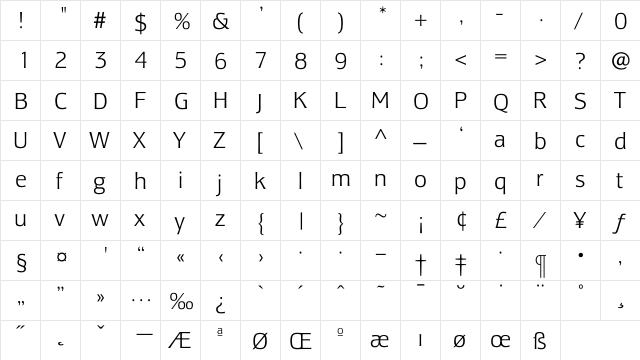
LesmoreLight Regular Font Preview
LesmoreLight Regular
Design Context for LesmoreLight Typeface
LesmoreLight is a composed and adaptable typeface that performs quietly and consistently across a wide range of design contexts. The delicate stroke weight brings airiness and refinement to layouts.